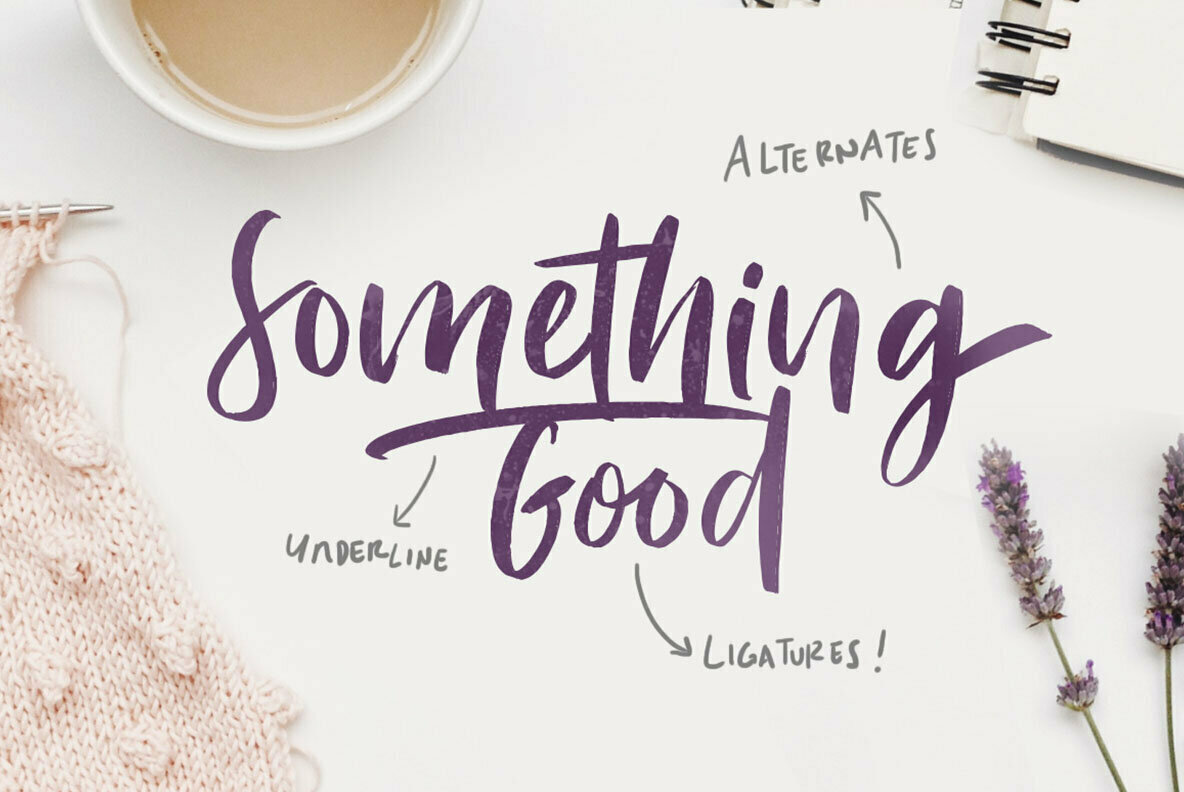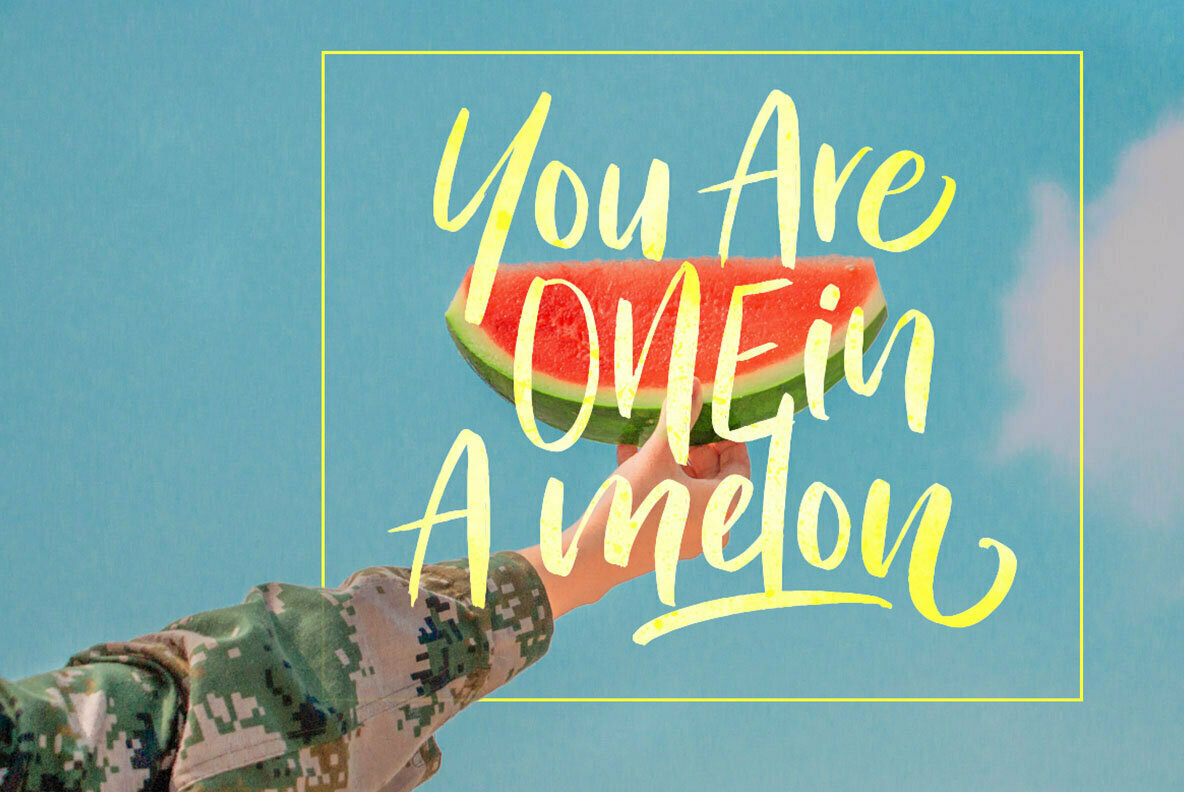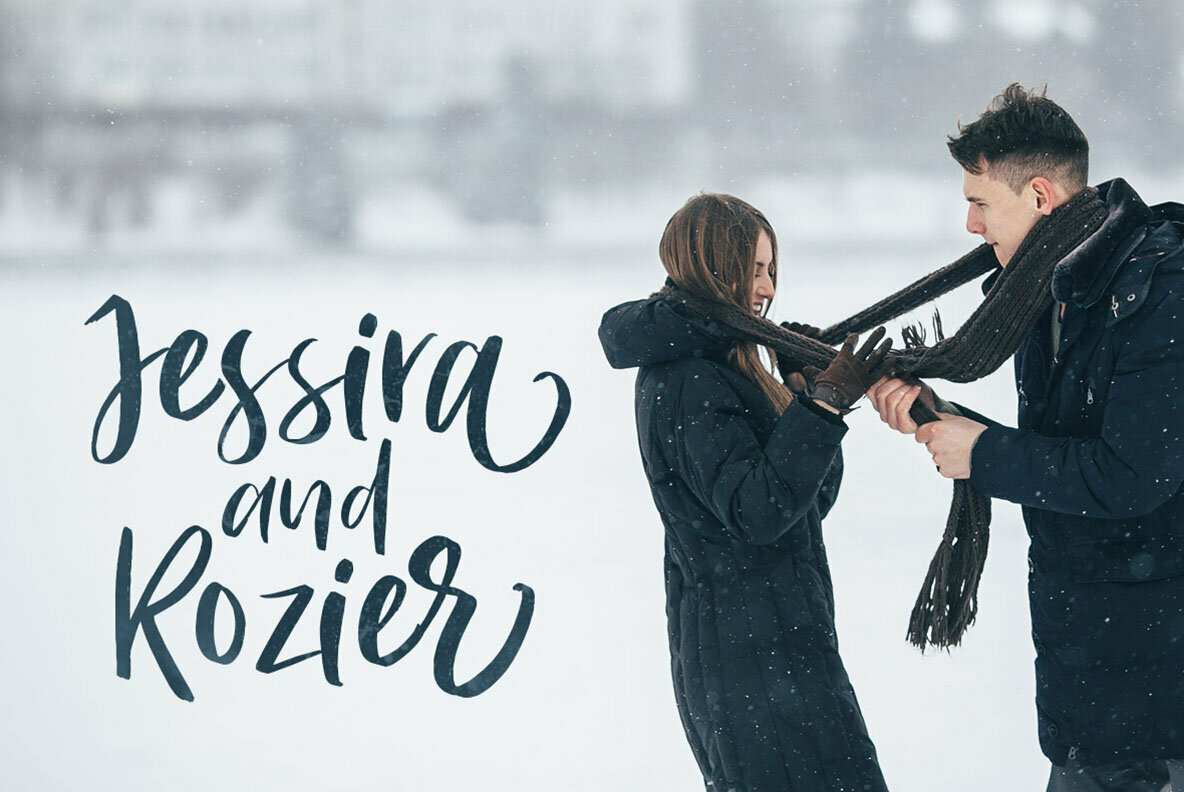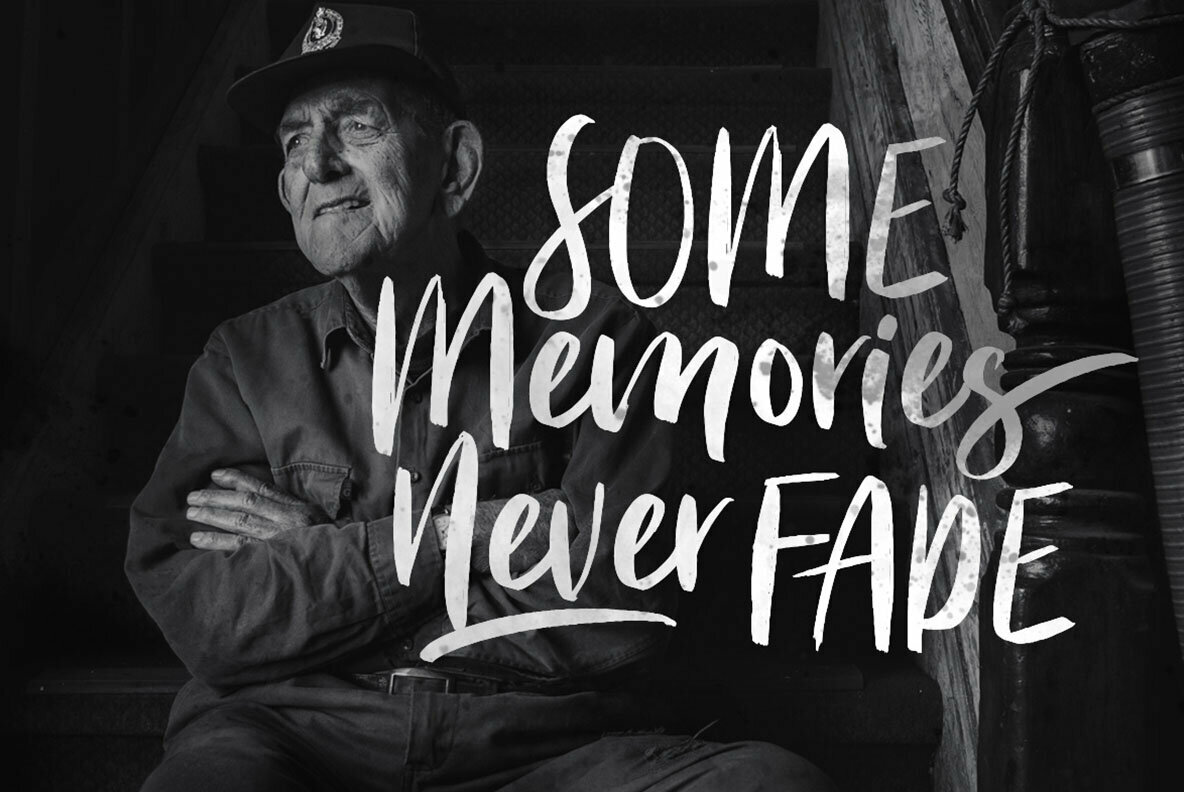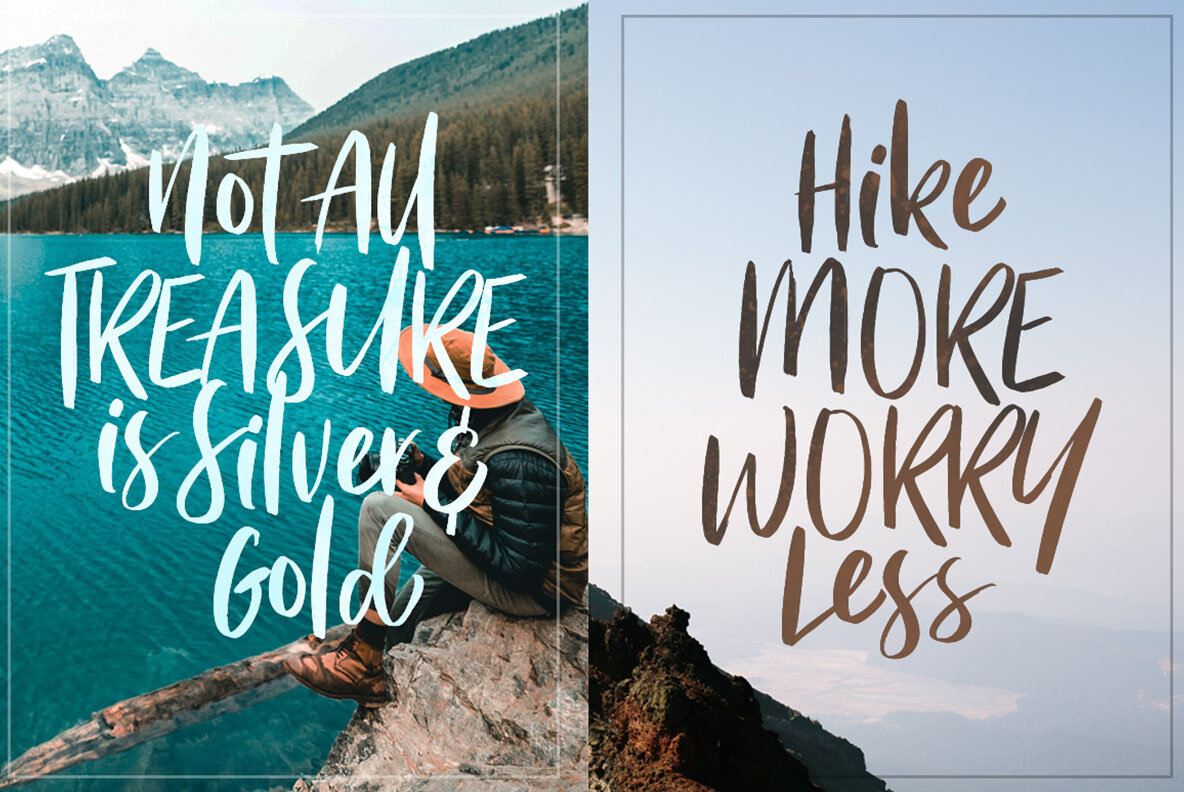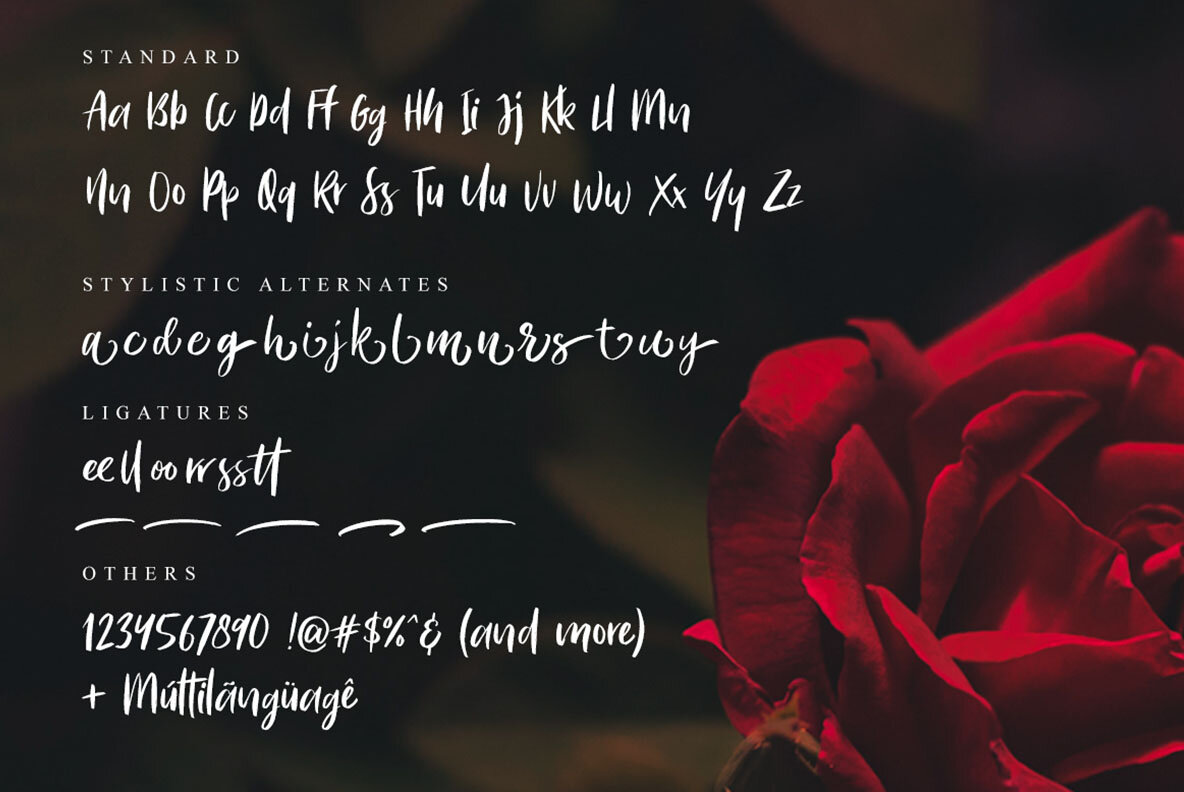
Bitter Rose Font
Bitter Rose
Designed to add a personal touch to your projects, Bitter Rose offers a textured brush style that elevates any signature, quote, or logo design. With its stylistic alternates and swashes, this font allows for endless customization, making it ideal for creating distinct, handcrafted aesthetics.Bitter Rose: A Textured Brush Font for Unique Designs